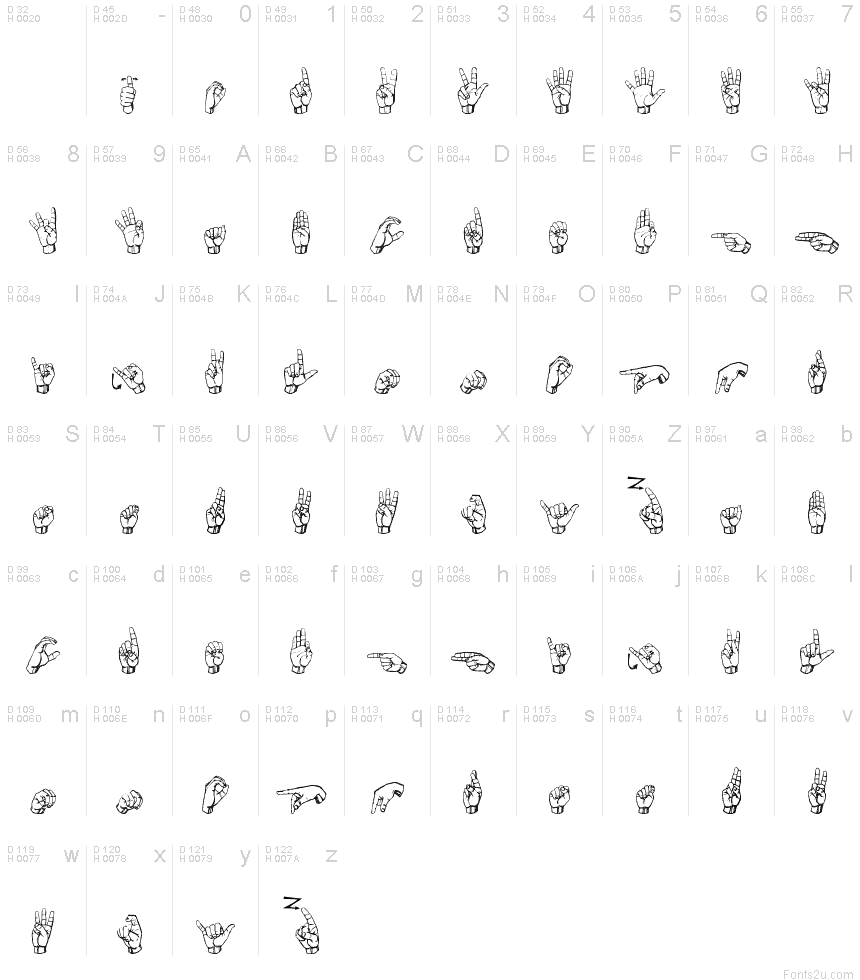
Gallaudet Medium
Gallaudet font by D. Rakowski is a free dingbat typeface that turns American Sign Language fingerspelling into crisp, ink-drawn symbols. Each handshape is rendered with clean, comic-style line work and subtle shading, so the letters feel both instructional and approachable-almost like panels from an illustrated guide. The consistent proportions and steady rhythm make strings of signs easy to read at a glance.
Using Gallaudet, this free font shines on educational posters, classroom worksheets, accessibility signage, language-learning apps, zines, and kids’ activity books. It’s especially handy when you need to mix text and ASL visuals in the same layout. For a clear hierarchy, pair Gallaudet with a simple sans serif for body copy and keep the hand signs a size or two larger so their detailed forms stay sharp and legible.